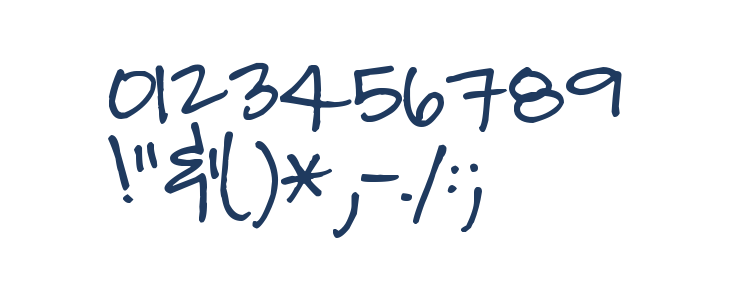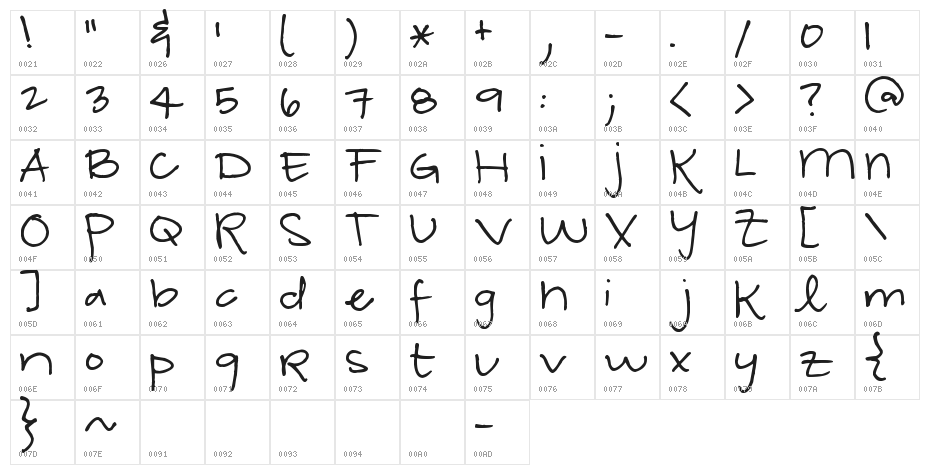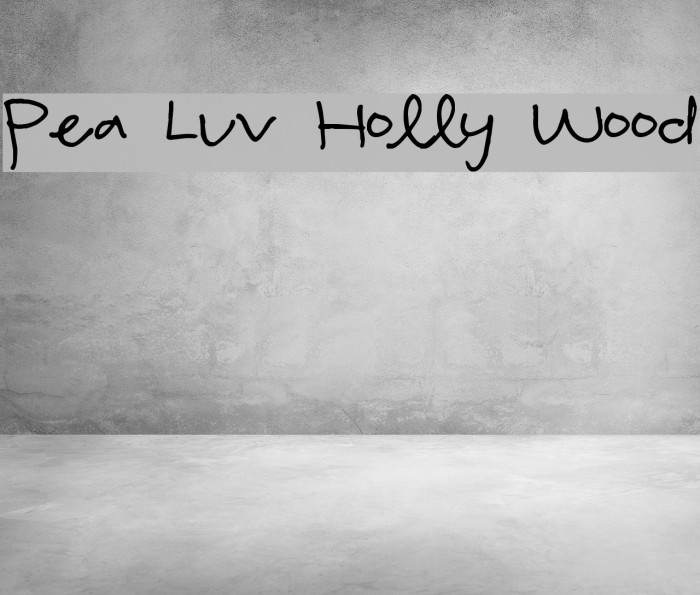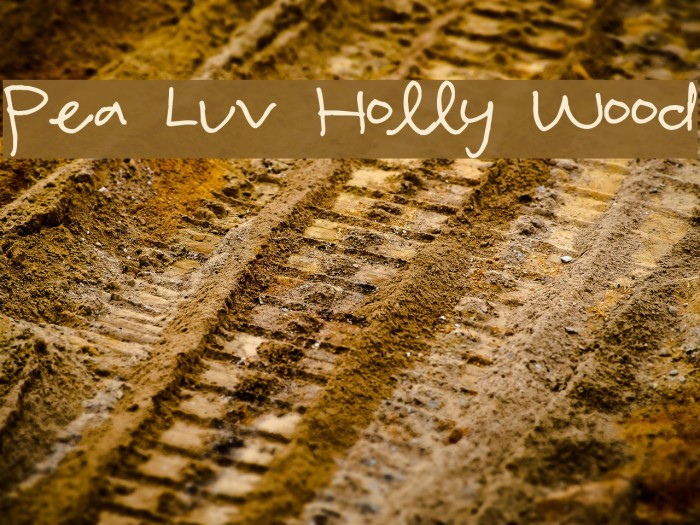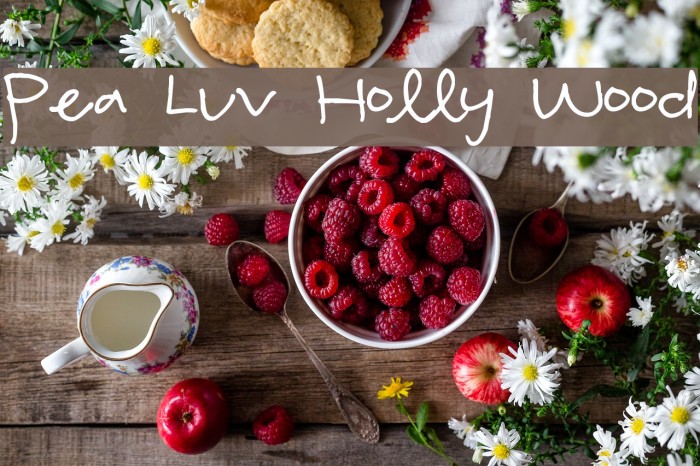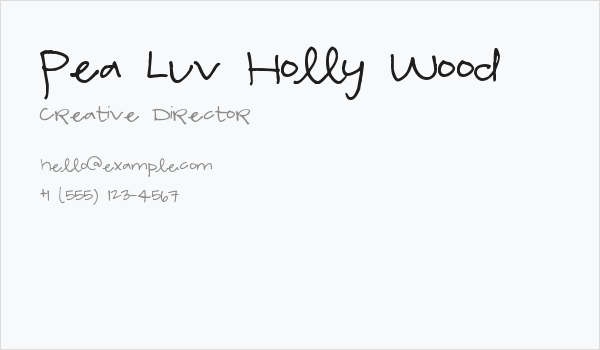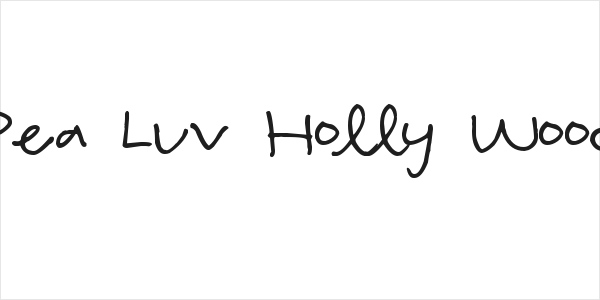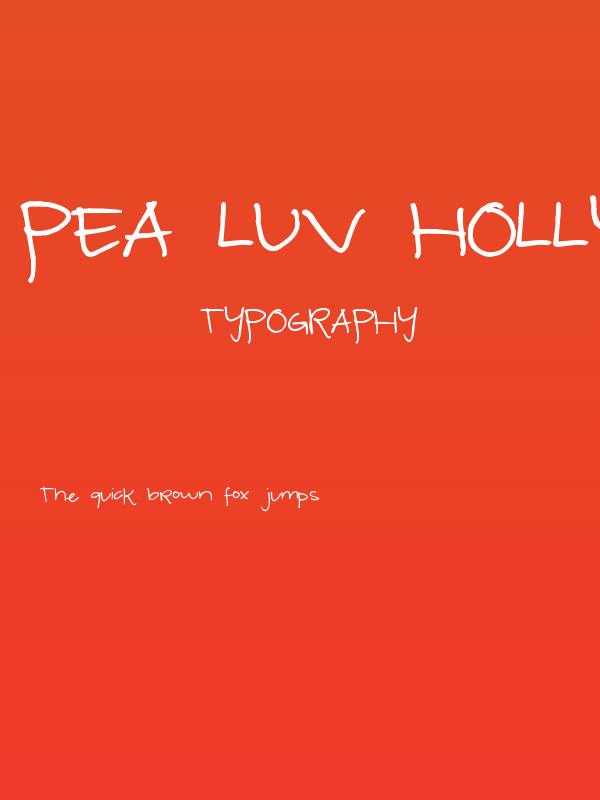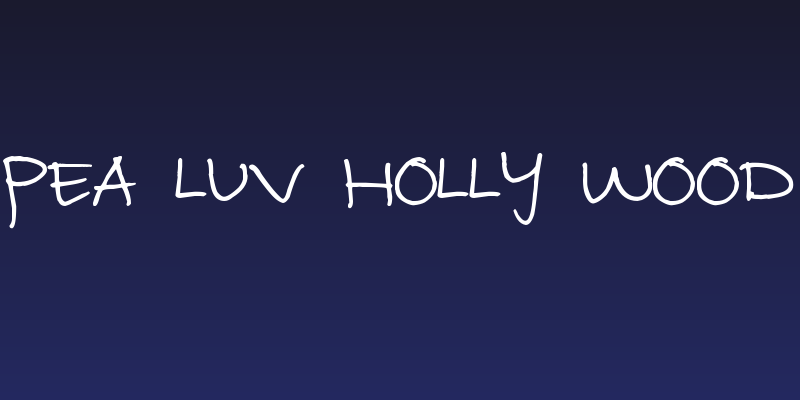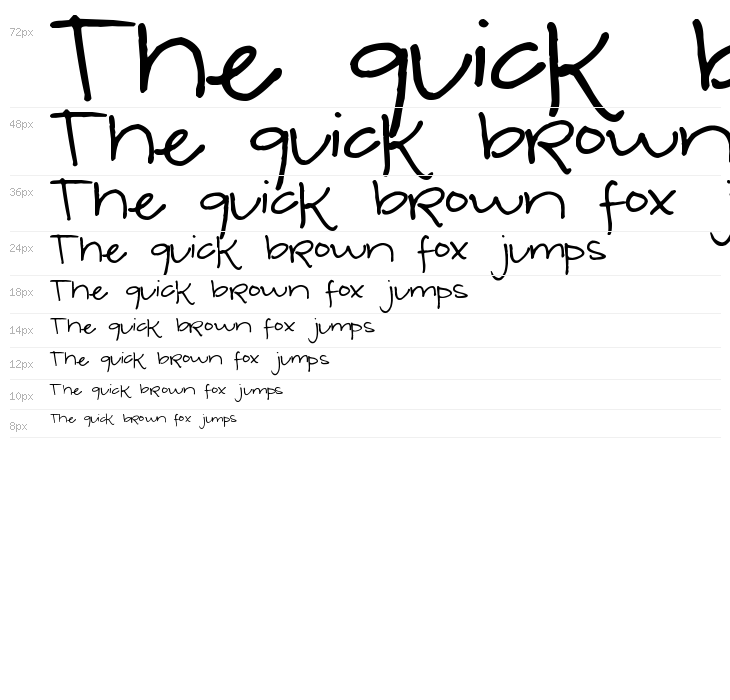
Pea Luv Holly Wood Font
Pea Luv Holly Wood Description
This font exudes a playful and casual handwritten style, characterized by its loose and flowing letterforms. Each character appears as if it were drawn with a felt-tip pen, giving it a personal and informal touch. The uppercase and lowercase letters maintain a consistent style, with rounded edges and a slightly irregular baseline that adds to its charm. The numerals and special characters follow the same whimsical design, making the font versatile for creative projects. Its overall appearance is friendly and approachable, ideal for conveying warmth and personality.
| Proposed Projects | Ideal for greeting cards, personal invitations, children's books, and playful branding. |